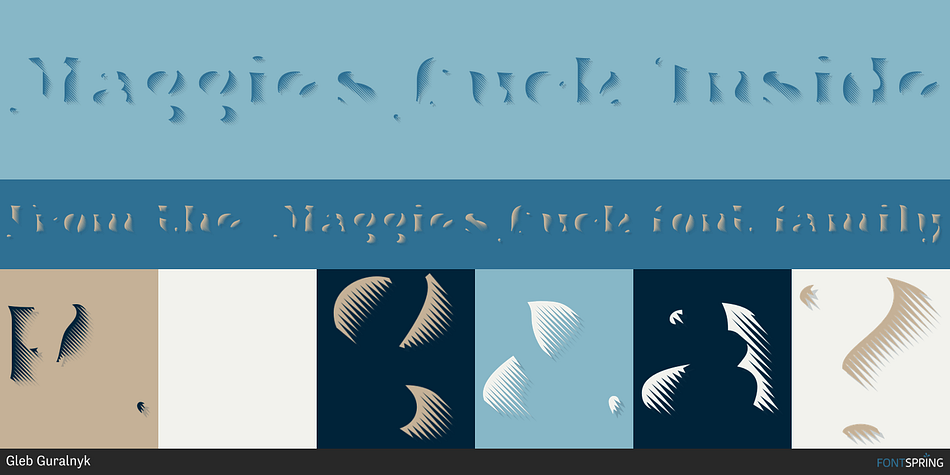
Maggie's Luck Inside
Designed by Gleb Guralnyk, Maggie's Luck is a retro font family. This typeface has five styles and was published by Gleb Guralnyk.
Hello! Introducing a layered display font — Maggie’s Luck. It’s a vintage style bold typeface with layered features. Maggie’s Luck Font has five “fonts-layers” for more convenient recoloring. This font has multilingual support (check out a screenshot with available letters and signs).